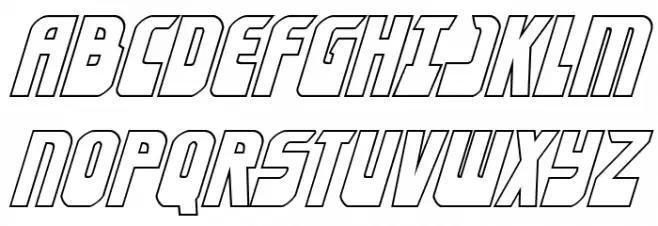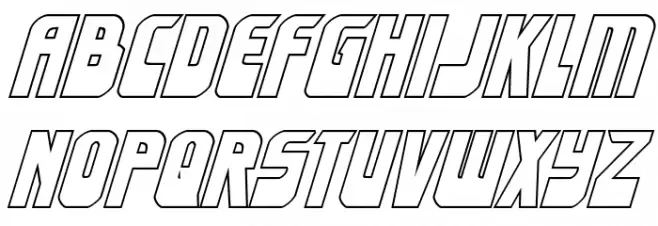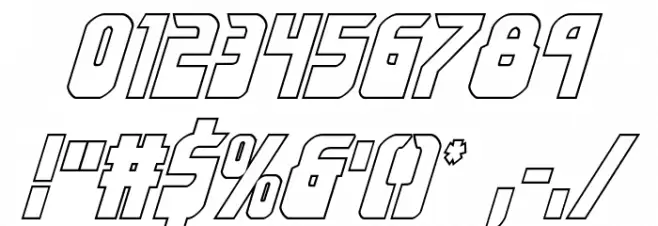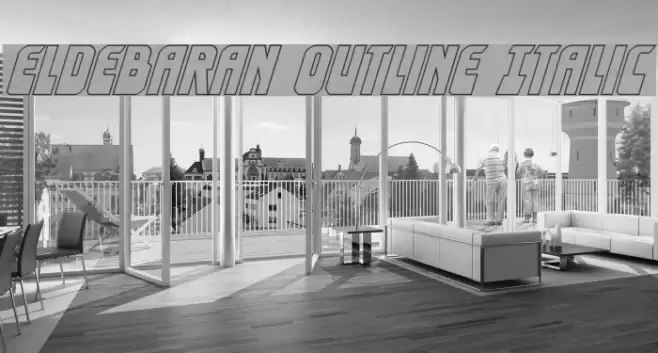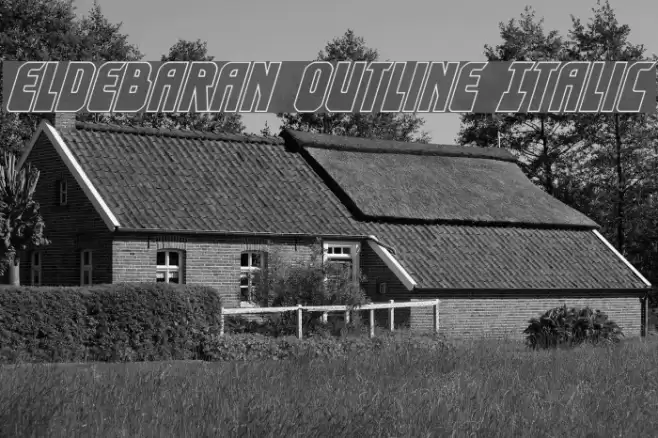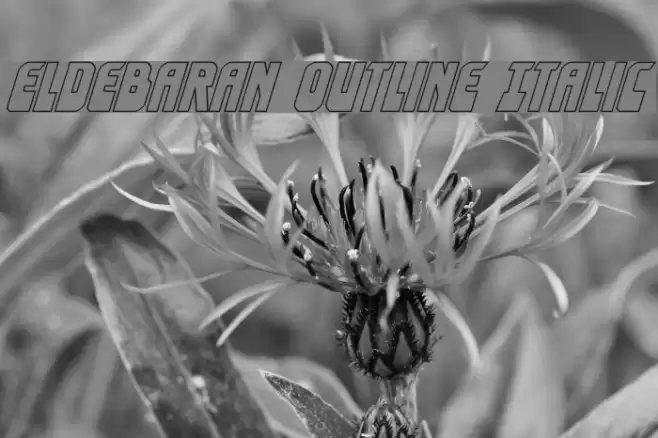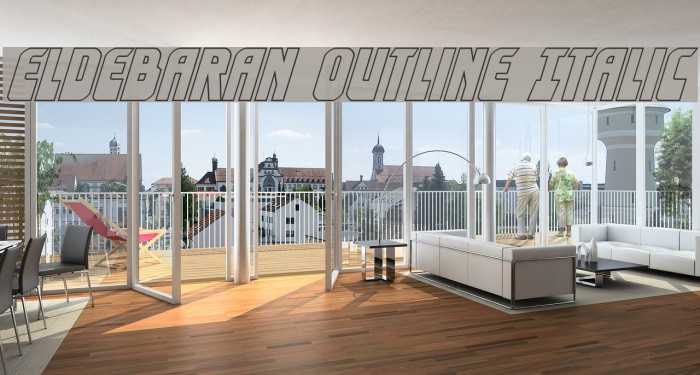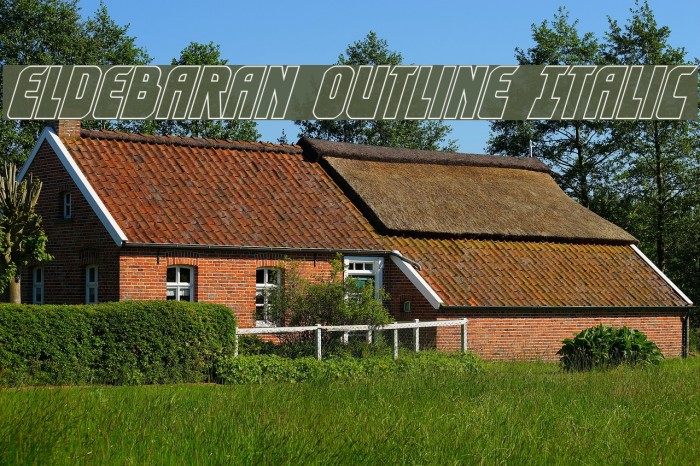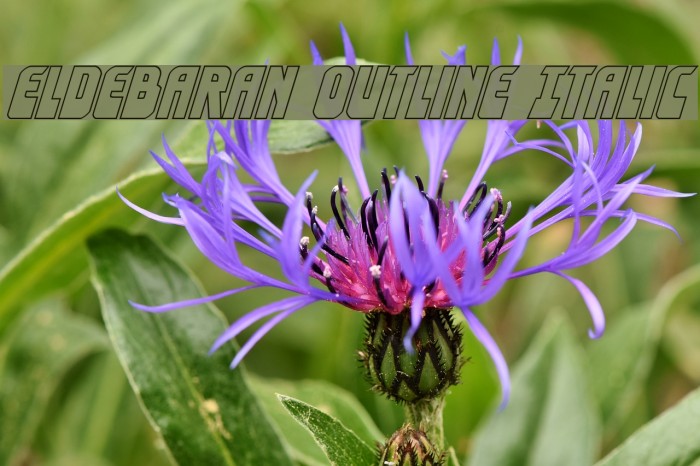
Eldebaran Outline Italic
This font features a bold, geometric design with an outline style that gives it a futuristic and dynamic appearance. The italic slant adds a sense of motion and speed, making it ideal for projects that require a modern and edgy look. The uppercase letters are prominent and angular, with sharp edges that enhance its contemporary feel. The numbers and special characters maintain the same bold outline, ensuring consistency across all elements. This font is perfect for creating eye-catching headlines, posters, and branding materials that need to stand out.
A bold, geometric outline font with an italic slant, perfect for modern and dynamic designs.
- Proposed Projects: Ideal for futuristic branding, sports team logos, tech event posters, and dynamic headlines.
- Use Case: Headlines, Logos, Posters